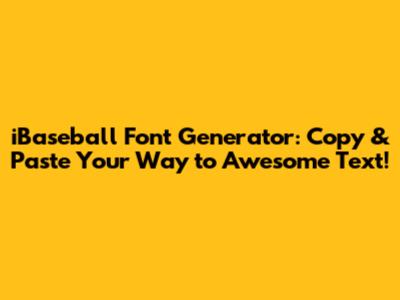
Team Spirit on Social Media: Are you managing your local team's Facebook page or Instagram? Use iBaseball fonts for your posts announcing game times, sharing scores, celebrating player achievements, or even just posting fun team trivia. Imagine your team name in a bold, athletic font – it instantly adds a professional and unified look. You can create eye-catching banners or profile pictures that really stand out in your followers' feeds. This is a fantastic way to build community and boost engagement among fans and players.
Fantasy League Dominance: If you're in a fantasy baseball league, you know how important it is to have a unique team name and maybe even a cool league logo. Use the iBaseball font generator to create a team name that strikes fear (or admiration!) into your opponents. Think of names like The Slugger Squad, Diamond Dynasty Dynamos, or The Bullpen Bandits all rendered in a sharp, sporty font. It adds personality and flair to your league identity, making the competition even more fun.
Personalized Baseball Gear & Gifts: Want to create custom t-shirts, hats, or mugs for yourself or as gifts? You can use these fonts for personalized text. Add your name and favorite player number in a cool baseball font to a custom jersey, or create a unique slogan for a birthday gift for the baseball fanatic in your life. This adds a special, handcrafted touch that makes the gift even more meaningful.
Website and Blog Enhancements: If you run a baseball blog, a sports news site, or even a personal website about your love for the game, using iBaseball fonts for headings, titles, or special call-out sections can make your content much more engaging. It helps reinforce the theme of your site and provides a visually appealing experience for your readers, keeping them hooked on your content.
Game Day Invitations and Announcements: Planning a get-together for a big game? Use the iBaseball font generator to create invitations that set the mood. Your invite could say something like, "Join us for the Big Game!" in a font that looks like it belongs on a stadium announcement board. It’s a fun way to get everyone excited before the event even starts.
Gaming Avatars and Usernames: For gamers who love baseball, using an iBaseball font for your in-game username or avatar name can be a great way to show off your passion. Stand out from the crowd with a username that reflects your love for America's favorite pastime.
Hey everyone! Are you tired of using the same old boring fonts for your baseball-related projects? Whether you're designing a team logo, creating social media graphics, or just want to spice up your personal messages with a sporty flair, the iBaseball font generator is your new best friend. This super handy tool lets you transform plain text into cool, baseball-themed fonts that you can easily copy and paste anywhere. It's like having a magic wand for your words, making everything you write look like it belongs on the field!
Why Use a Baseball Font Generator?
So, why bother with a special font generator, especially one focused on baseball? Great question, guys! Think about it: the world of fonts is vast, but sometimes you need something that screams baseball. Maybe you're creating a flyer for a little league game, designing a website for your fantasy baseball league, or even just sending a text to your buddies about the big game tonight. Using a standard font just won't cut it if you want to capture that authentic sports vibe. That's where our iBaseball font generator comes in. It's specifically designed to give your text that athletic, spirited look that resonates with fans and players alike. Imagine your team's name looking like it was stitched onto a jersey, or a score update appearing as if it were from a stadium scoreboard. This generator brings that exact kind of magic to your fingertips. It's not just about looking cool; it's about feeling the game, connecting with the spirit of baseball, and making your content stand out from the crowd. In a world flooded with generic text, a unique font can be the difference-maker, grabbing attention and making a lasting impression. So, if you want your baseball-related content to hit it out of the park, using a specialized font is a strategic move that pays off big time.
How Does the iBaseball Font Generator Work?
Getting started with the iBaseball font generator is as easy as hitting a home run on the first pitch. Seriously, it's that simple. All you need to do is type your text into the input box provided. As you type, the generator instantly converts your words into a variety of baseball-inspired fonts. You'll see a whole list of cool options appear right before your eyes. Once you find the font you love, just click the 'copy' button next to it. Then, head over to wherever you want to use your new text – maybe it's a social media post, a document, an email, or even a gaming profile – and paste it in. Boom! Your text is now transformed, looking sharp and sporty. No complicated software, no downloads, no design skills needed. It's all done online, right in your browser. This accessibility is key, meaning anyone with an internet connection can instantly elevate their text. We've designed it to be intuitive and user-friendly, so you spend less time figuring things out and more time creating awesome content. Whether you're a tech whiz or a complete beginner, you'll find this tool a breeze to use. The magic happens in the conversion process, where our system uses special character codes to create visually distinct text that mimics various baseball aesthetics, from classic varsity lettering to modern, sleek designs. It's a straightforward process that yields impressive results, making it the go-to solution for anyone needing that extra baseball touch.
Creative Uses for iBaseball Fonts
Now that you know how easy it is to use the iBaseball font generator, let's brainstorm some awesome ways you can put these cool fonts to work! The possibilities are pretty much endless, but here are a few ideas to get your creative juices flowing:
Tips for Using iBaseball Fonts Effectively
Alright, guys, so you've got the power of the iBaseball font generator at your fingertips. Now, let's talk about how to use it like a pro to make sure your text doesn't just look cool, but also works well. Using unique fonts is awesome, but there are a few things to keep in mind to ensure your message is clear and your design is top-notch.
First off, readability is key. While those fancy baseball fonts can look amazing, make sure the text is still easy to read. Some extremely stylized fonts might be a bit tricky to decipher, especially in smaller sizes or at a glance. Always preview your text in the context where you'll be using it. If it's for a social media caption that people will scroll through quickly, a super intricate font might not be the best choice. Opt for cleaner, bolder iBaseball fonts for maximum impact and clarity. Think about your audience – are they die-hard fans who will appreciate the stylized look, or a broader audience who might struggle with less common letterforms? Balance style with substance!